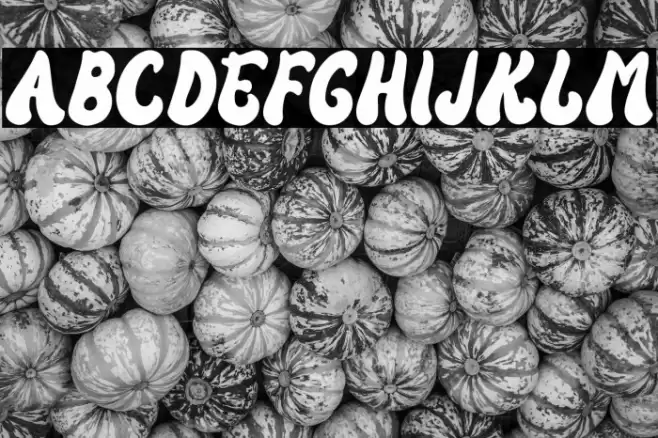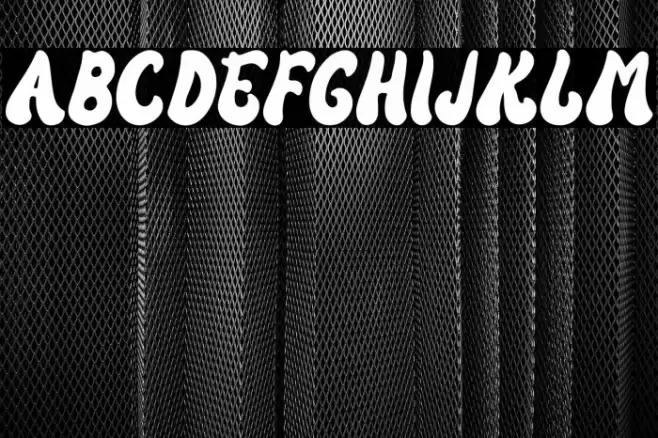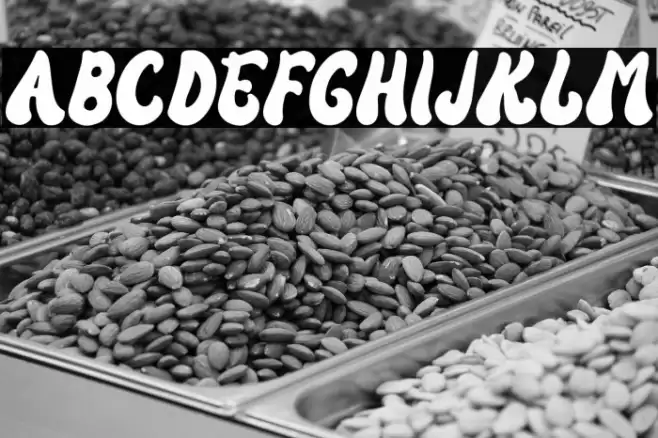
Vintage Rumble Font
Vintage Rumble Description
This font features a bold and playful script style, characterized by its thick, rounded strokes and smooth curves. The letters are closely connected, giving it a cohesive and flowing appearance. The uppercase letters maintain a consistent height, while the lowercase letters have a slightly more varied baseline, adding to its dynamic feel. The numbers and special characters are designed to match the overall style, with a similar boldness and rounded form. This font exudes a retro charm, reminiscent of vintage signage and advertisements.
A bold, playful script font with rounded strokes and a retro vibe from Uncategorized fonts.
- Font: Vintage Rumble
- Proposed Projects: Ideal for vintage-themed posters, retro branding, playful invitations, and eye-catching headlines.
- Character Spacing: Tight
- Overall Style: Vintage